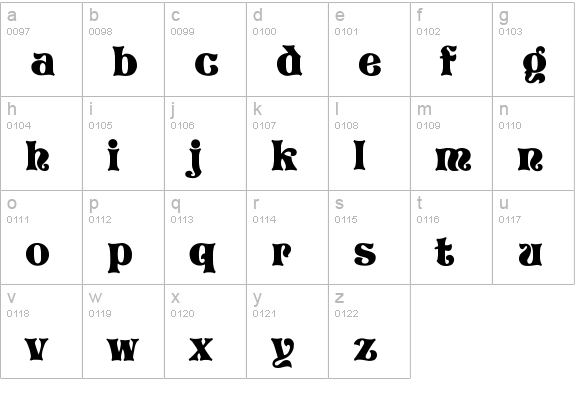
Pretoria font is a modern and elegant typeface that exudes sophistication and style. With its clean lines and distinctive curves, this font is perfect for a wide range of design projects, from branding to editorial layouts. The versatility of Pretoria font makes it suitable for both headings and body text, ensuring a cohesive and polished look across all your designs. The best part? Pretoria font is available for free download at FontsMarket.com. Whether you're a seasoned designer or just starting out, this font will elevate your projects and give them a professional edge. Don't miss out on this opportunity to enhance your design toolkit with the exquisite Pretoria font. Download it now and start creating stunning visuals that stand out from the crowd.